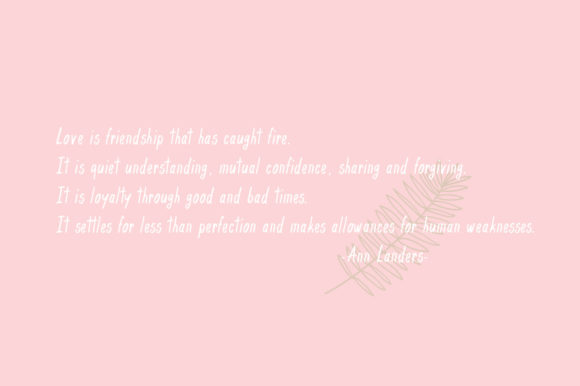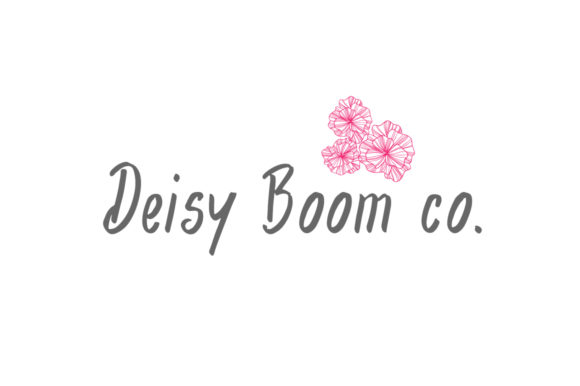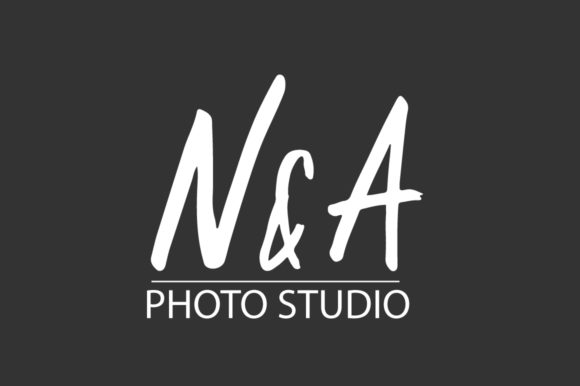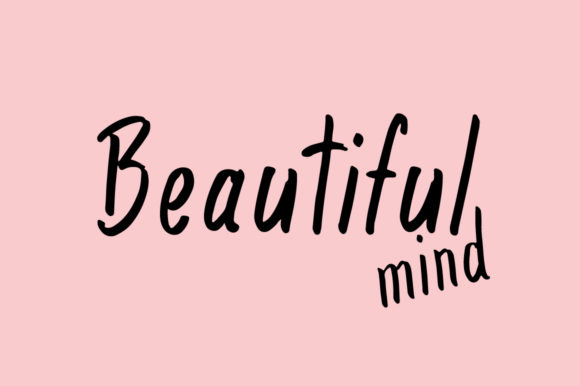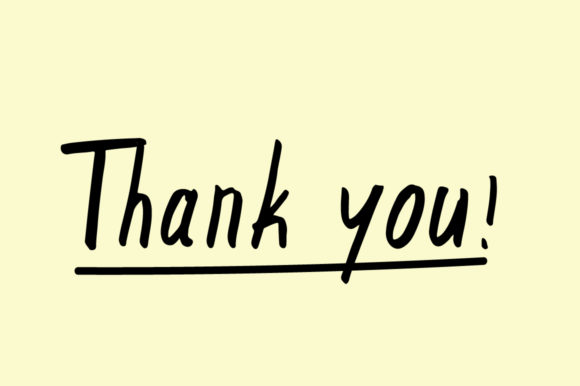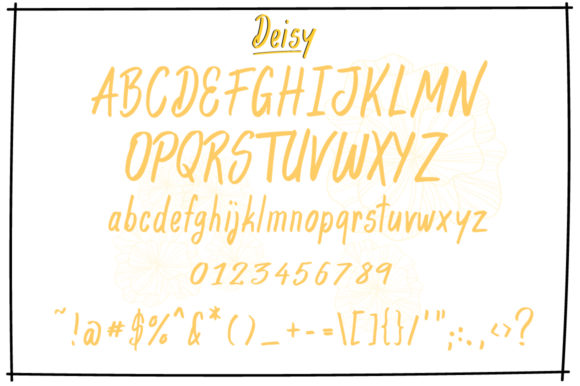
Deisy Font
About Deisy Font
The Deisy is a striking script font. It’s perfect for high impact headlines and every other design which needs to stand out.